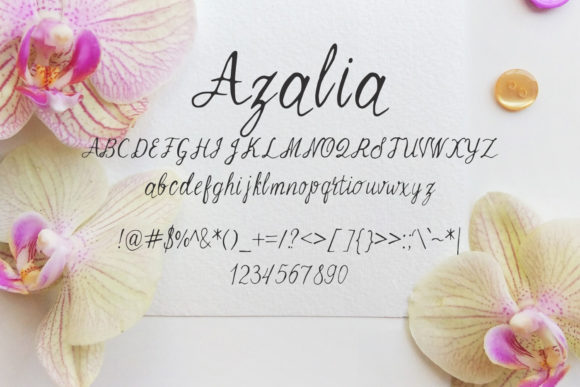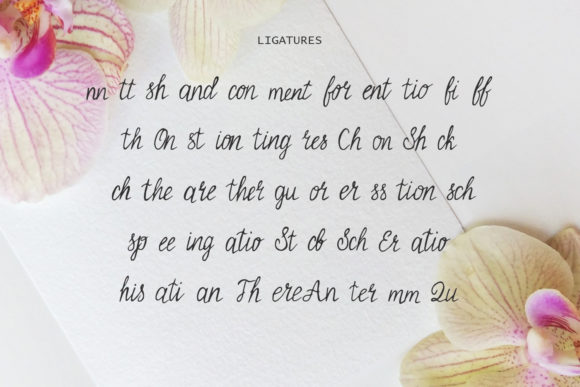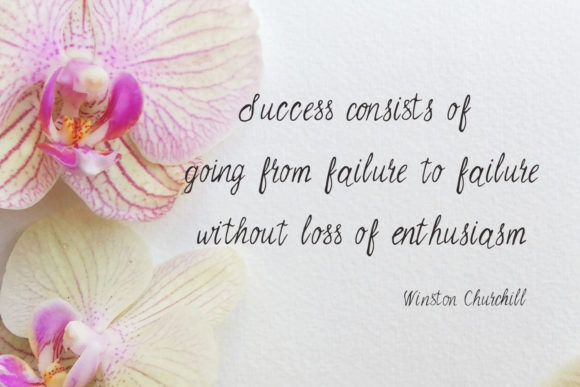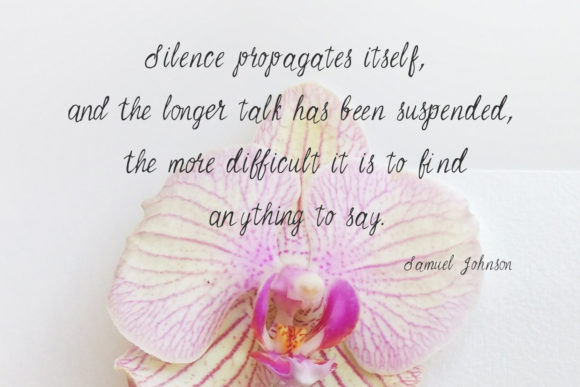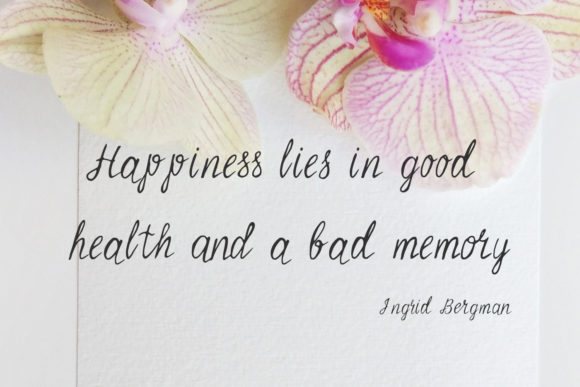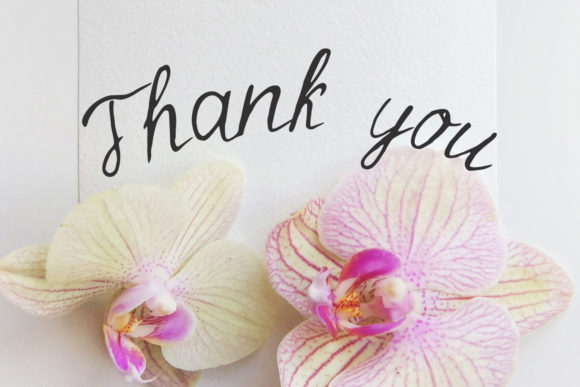
Introducing Azalia Font: Elevate Your Designs with Elegance and Flair
Are you on the hunt for a font that embodies the perfect blend of delicacy, elegance, and fluidity? Look no further than Azalia Font, a stunning handwritten typeface that is sure to breathe life into your creative projects. With its beautifully balanced characters and versatile charm, Azalia Font is an excellent addition to any designer’s toolkit.
The Beauty of Azalia Font
Azalia Font is a delicate, elegant, and flowing handwritten font that boasts exquisite character design. Each letter is carefully crafted to ensure a harmonious balance of curves and lines, resulting in a sophisticated and refined aesthetic. The font’s gentle flow and fluid connections between letters create a sense of movement and elegance, making it perfect for designs that require a touch of sophistication.
One of the standout features of Azalia Font is its incredible versatility. Its classic yet modern design makes it an excellent match for a wide range of design projects, from wedding invitations and branding materials to packaging and digital media. Whether you’re working on a minimalist design or a more elaborate creative project, Azalia Font is sure to complement your vision with its understated elegance.
Bring Your Ideas to Life with Azalia Font
Azalia Font is more than just a typeface – it’s a design element that can elevate your creative ideas and turn them into stunning visual realities. Imagine adding a touch of elegance to your branding, or infusing your marketing materials with a sense of sophistication and refinement. With Azalia Font, you can:
- Create breathtaking wedding invitations and stationery that exude romance and luxury
- Develop a strong brand identity that communicates elegance and sophistication
- Design eye-catching packaging that stands out on store shelves and in digital marketplaces
- Enhance your digital media with beautiful, high-quality typography that engages and delights your audience
Why Choose Azalia Font?
With so many fonts available, why choose Azalia Font for your design projects? Here are just a few compelling reasons:
- Unique Character: Azalia Font boasts a distinctive, handcrafted feel that sets it apart from more generic typefaces
- Ease of Use: Azalia Font is incredibly easy to use, even for designers who are new to working with handwritten fonts
- Exceptional Quality: Each character is meticulously designed to ensure a high level of quality and consistency
- Flexibility: Azalia Font can be used for a wide range of design projects, from print materials to digital media
Azalia Font is a beautiful, elegant, and highly versatile handwritten typeface that can add a touch of sophistication and refinement to any design project. With its delicate curves, flowing lines, and well-balanced characters, Azalia Font is the perfect choice for designers and crafters looking to elevate their creative ideas and bring them to life. Whether you’re working on a wedding invitation, branding materials, or digital media, Azalia Font is sure to make a lasting impression.